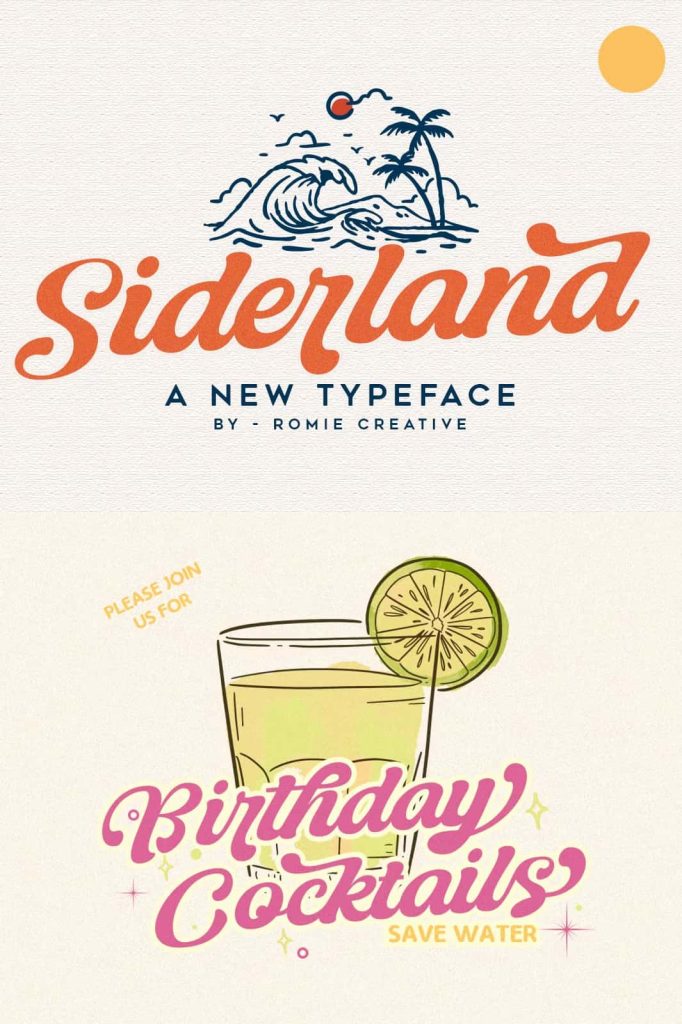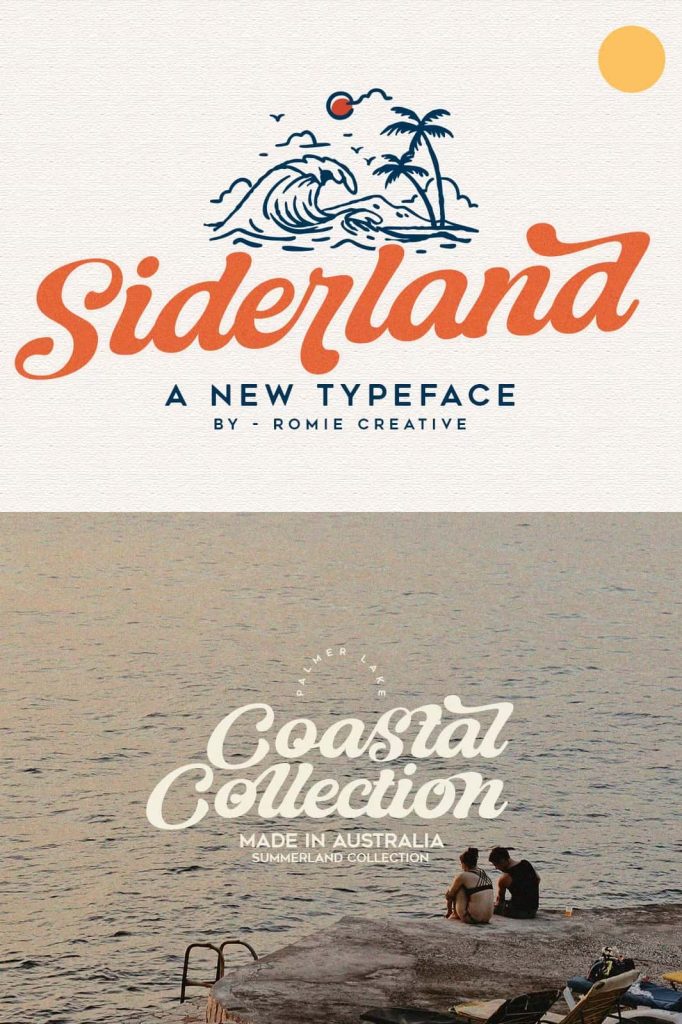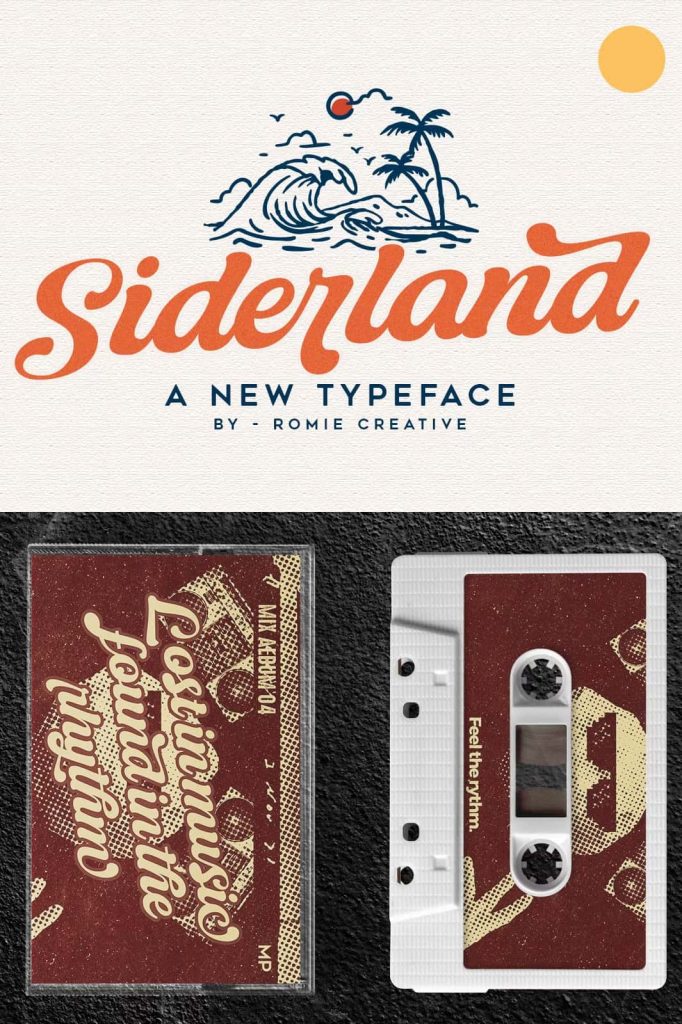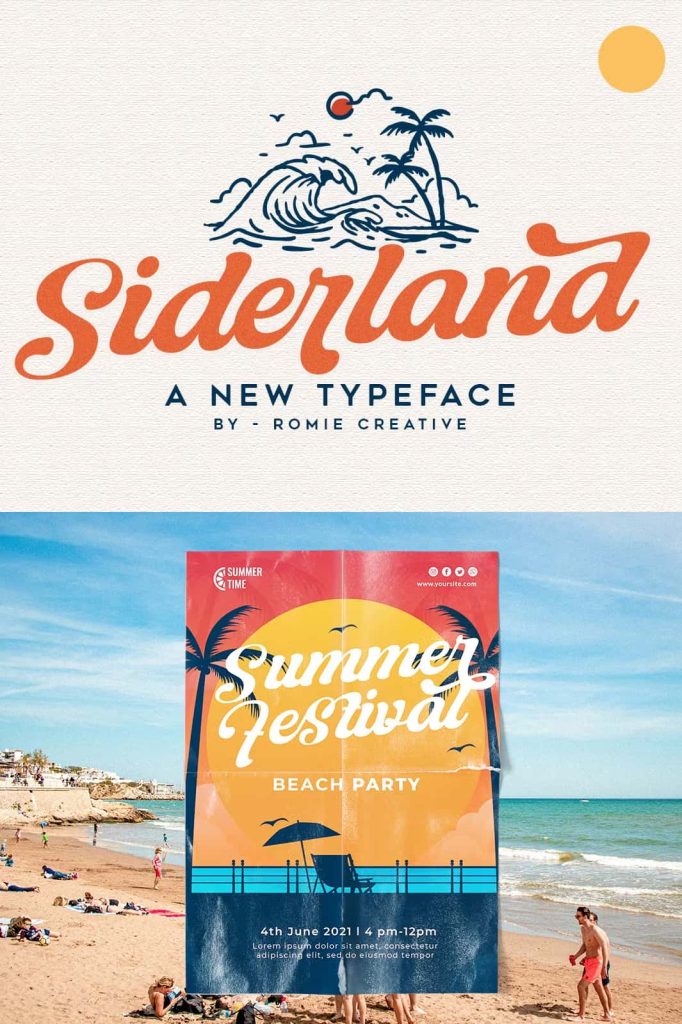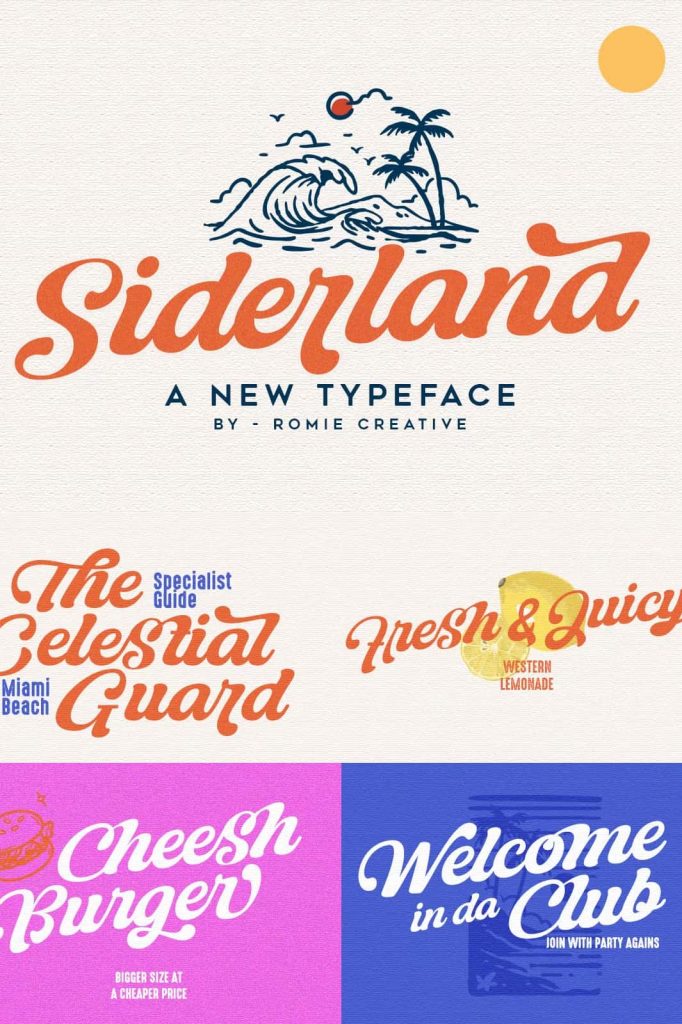
Siderland Script Typeface: Expressive Lettering with Refined Personality
Siderland is a carefully crafted script typeface designed to balance elegance, character, and strong visual personality. Created with attention to detail, this font delivers smooth flowing strokes while maintaining a confident and distinctive presence. Every letter is shaped to feel natural and expressive, making Siderland a powerful choice for designers who want typography that communicates emotion and identity.
This script typeface is versatile and adaptable, allowing it to perform beautifully across a wide range of creative applications. From branding and packaging to event stationery and apparel, Siderland brings a refined handwritten feel that enhances visual storytelling.
A Script Typeface Designed with Balance and Character
The defining strength of Siderland lies in its balance between elegance and personality. The script flows smoothly from one letter to the next, creating a cohesive rhythm that feels intentional and polished. At the same time, subtle variations in stroke and form give the font a handcrafted quality that adds warmth and individuality.
Unlike overly decorative scripts that can feel difficult to use, Siderland maintains clarity and structure. This makes it suitable for both decorative display text and practical branding needs, ensuring your designs remain readable while still feeling expressive and stylish.
Versatile Applications Across Creative Design
Siderland is designed to adapt seamlessly to many types of projects. Its expressive script style works especially well in applications where personality and emotion play a key role. Designers can confidently use this typeface to create cohesive and visually engaging compositions across print and digital media.
Perfect for Logos, Badges, and Emblems
As a logo and branding font, Siderland delivers strong visual impact and memorability. Its flowing script style helps brands communicate authenticity, creativity, and sophistication. Use it for logos, badges, and emblems where a handcrafted yet professional appearance is essential.
The font’s distinctive character ensures that brand marks feel unique and recognizable, making it ideal for small businesses, creative studios, lifestyle brands, and artisan products.
Ideal for Packaging, Apparel, and Merchandise
Siderland performs beautifully in packaging design, adding elegance and personality to product labels and boxes. It works particularly well for fashion, beauty, food, and handmade goods, where typography plays a crucial role in conveying quality and brand values.
For apparel and merchandise, such as t-shirts and clothing, Siderland creates bold and expressive typography that feels stylish and wearable. Its script form translates well across different materials and printing techniques.
Enhance Events and Personal Projects with Style
Siderland is an excellent choice for event-related designs, including greeting cards, wedding invitations, and celebration stationery. Its elegant flow and personal touch make it ideal for communicating warmth and emotion. Whether used for formal weddings or casual celebrations, the font adapts to different moods while maintaining its refined character.
Designers can use Siderland for titles, posters, and promotional materials that require a strong focal point. Its script style draws attention naturally and adds sophistication to visual layouts.
Works Beautifully in Print and Digital Media
Siderland is optimized for both print and digital use, ensuring consistent performance across different platforms. It works effectively on websites, social media graphics, digital advertisements, and online branding materials. When paired with clean supporting fonts, Siderland enhances readability and visual hierarchy.
The typeface scales well at different sizes, making it suitable for large display text as well as smaller applications where clarity is still important.
Why Choose the Siderland Script Typeface
Siderland stands out as a script typeface that combines elegance, personality, and versatility. It empowers designers to create meaningful visuals that feel personal, professional, and visually engaging. The careful craftsmanship behind each letter ensures reliable performance across a wide range of creative projects.
If you are looking for a script typeface that elevates branding, packaging, apparel, and event design, Siderland is an excellent choice. It brings expressive lettering and refined style together, helping your designs leave a lasting and memorable impression.